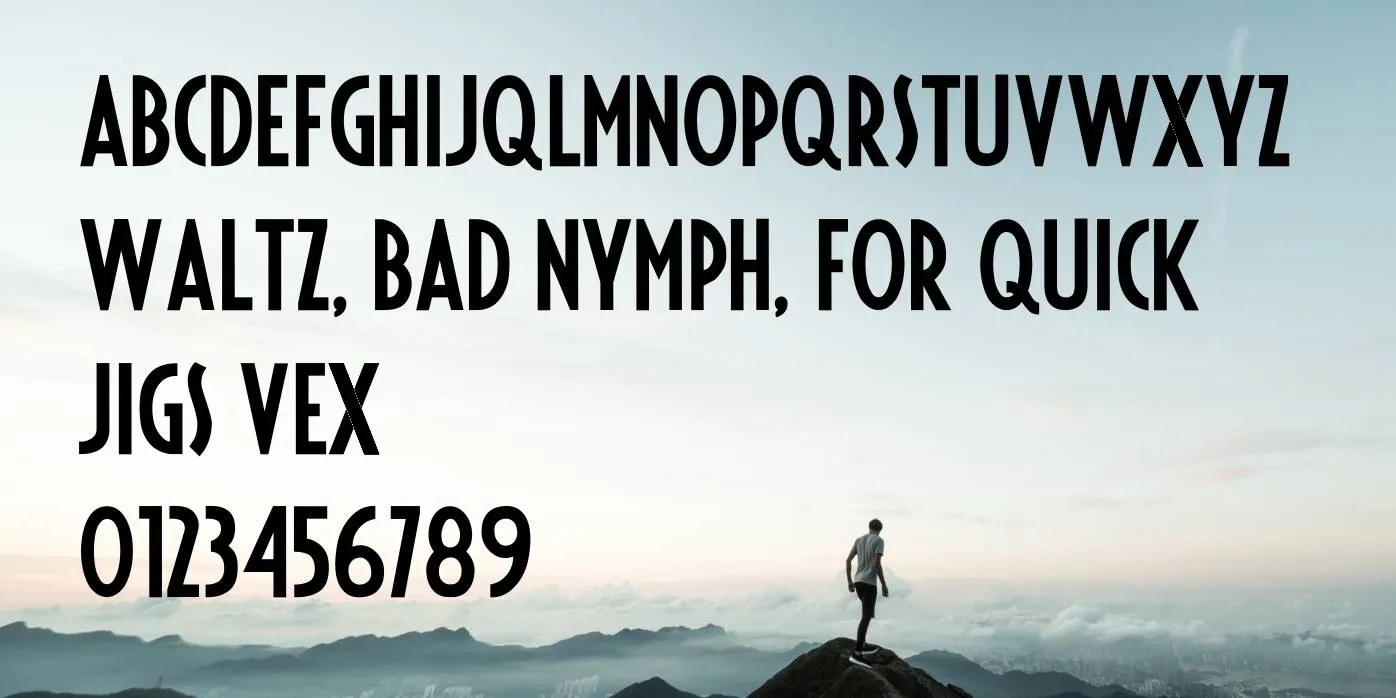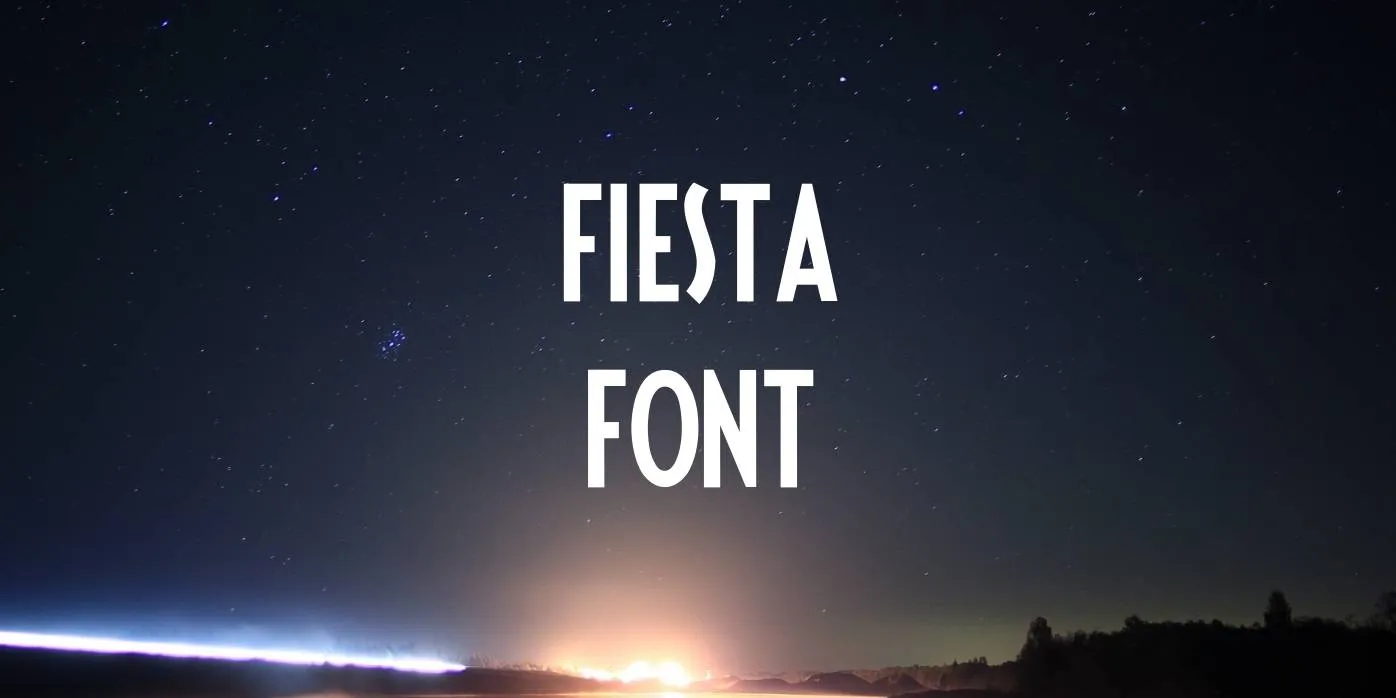
Fiesta Font
Fiesta Font is the most winsome typeface that has a bold style with a fancy shape. The font family belongs to a fancy typeface family and the designer of this pretty cool typeface is “Nowak.tv”. It has TTF features and is free for personal use. If we talk about its characters the font family has Uppercase Letters, Numbers, and some symbols also.
Its characters are pretty large from X heights and seem outstanding on the logo or poster. Its characters are very effective and easy to read. You can also generate this typeface with the generator tool in case you don’t want to download it. The font has many downloaders over the internet and has many users Which means the people like it so much and it is very beneficial for their projects.